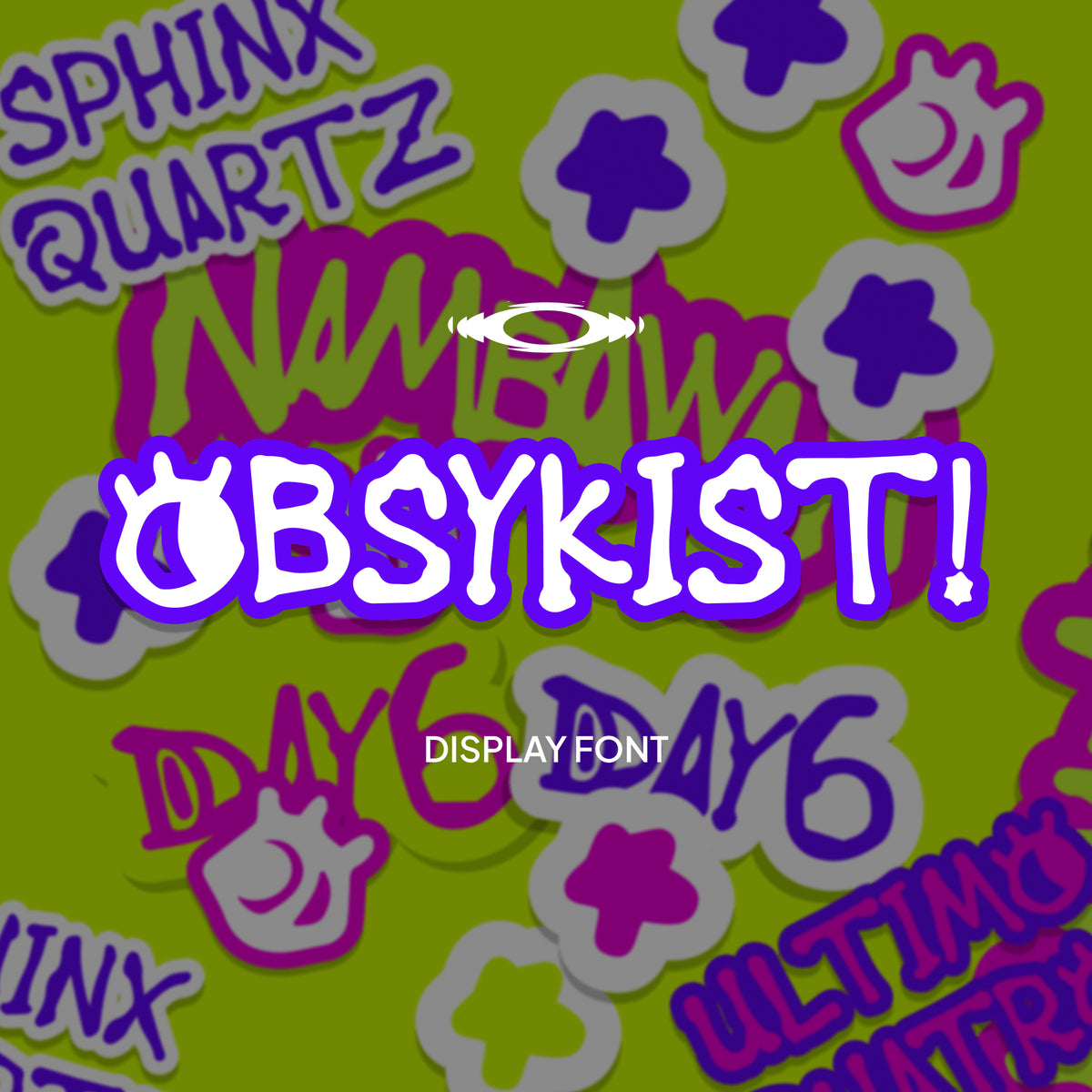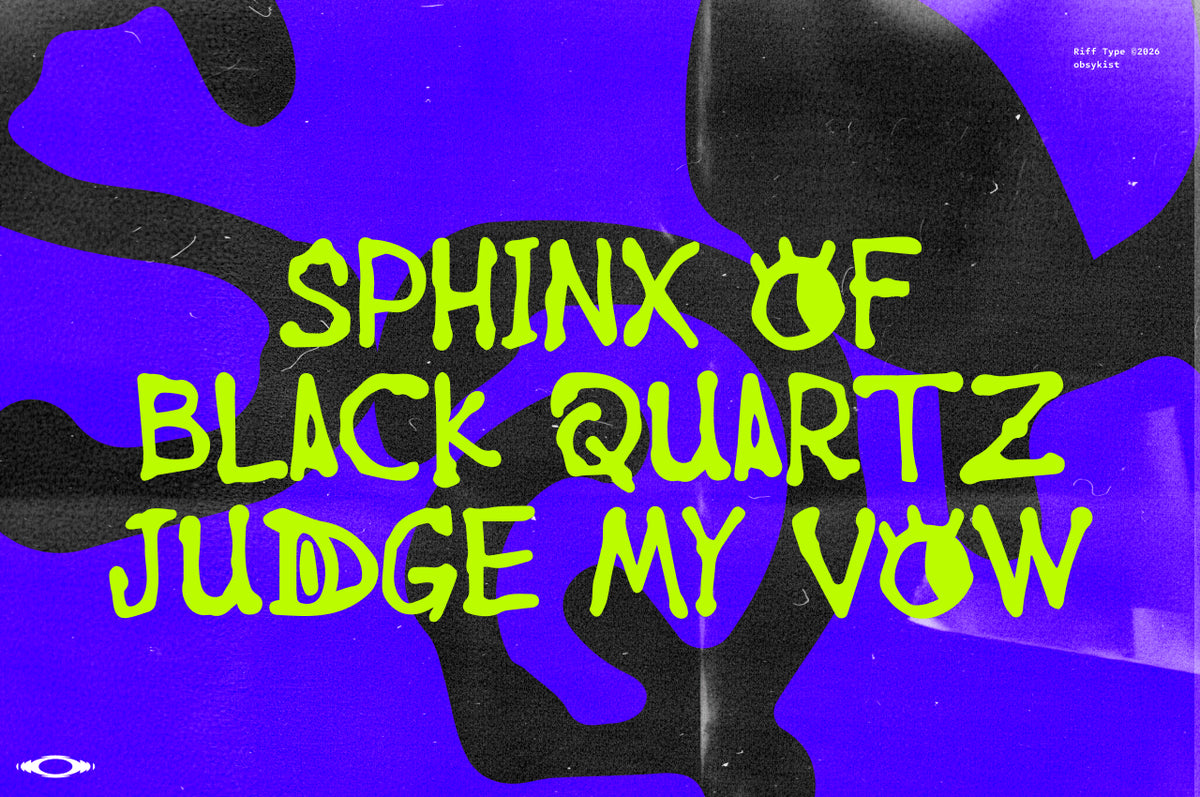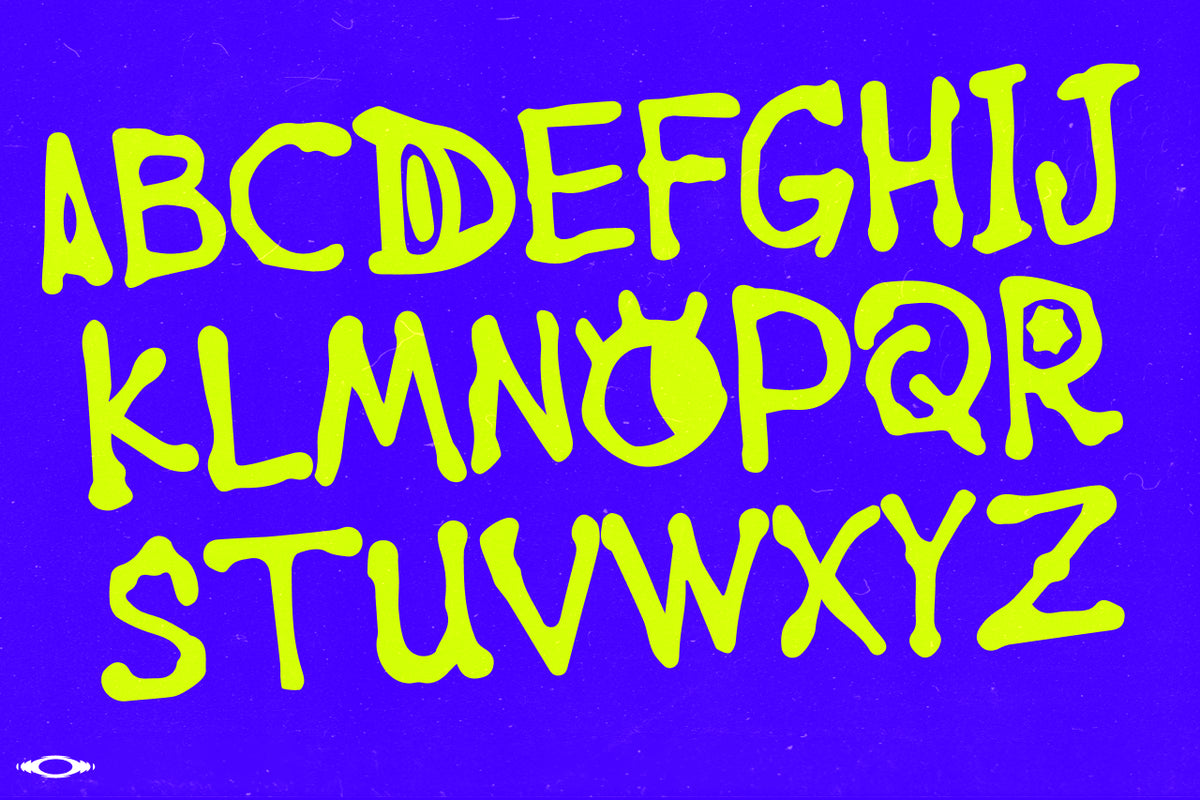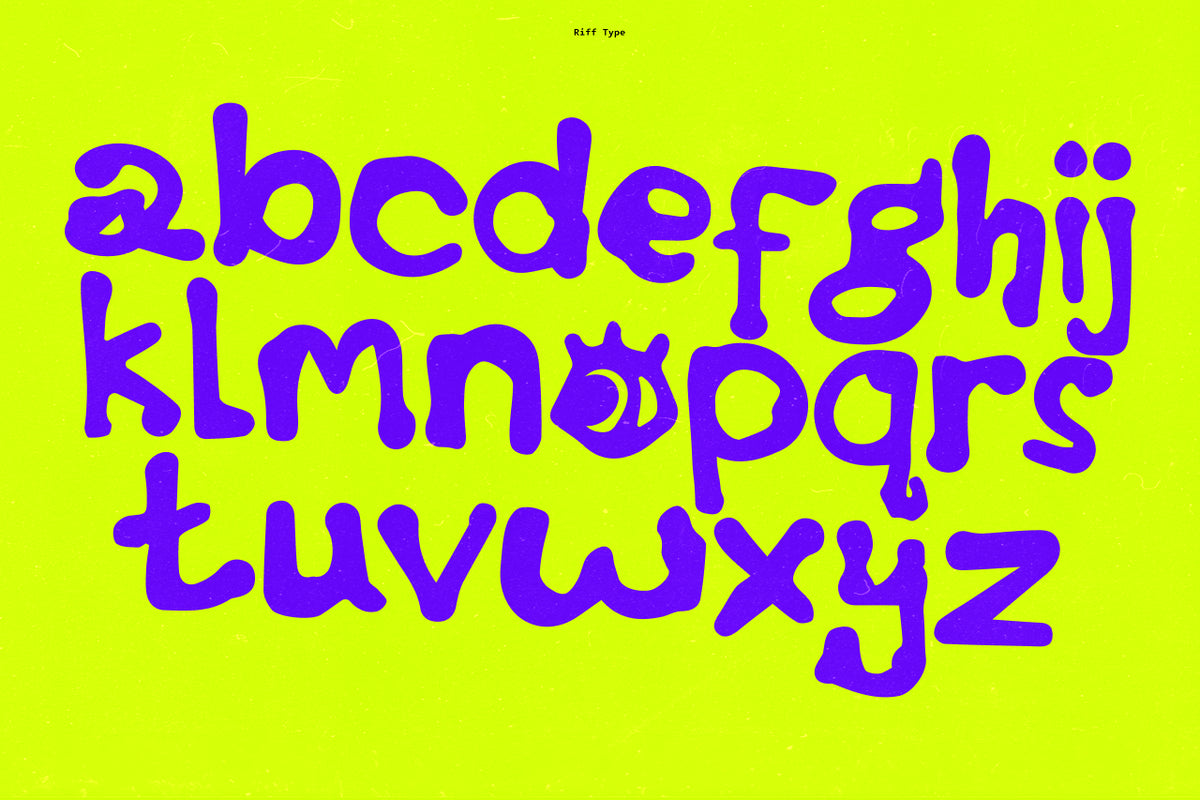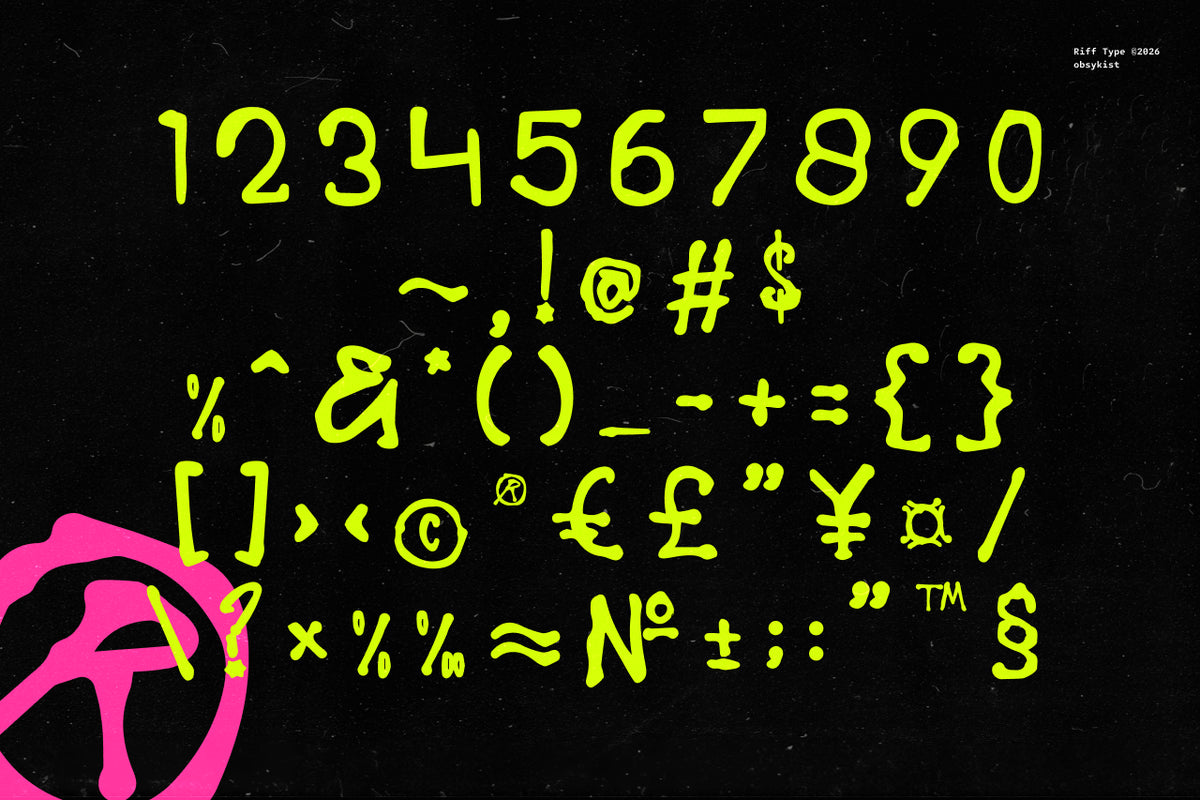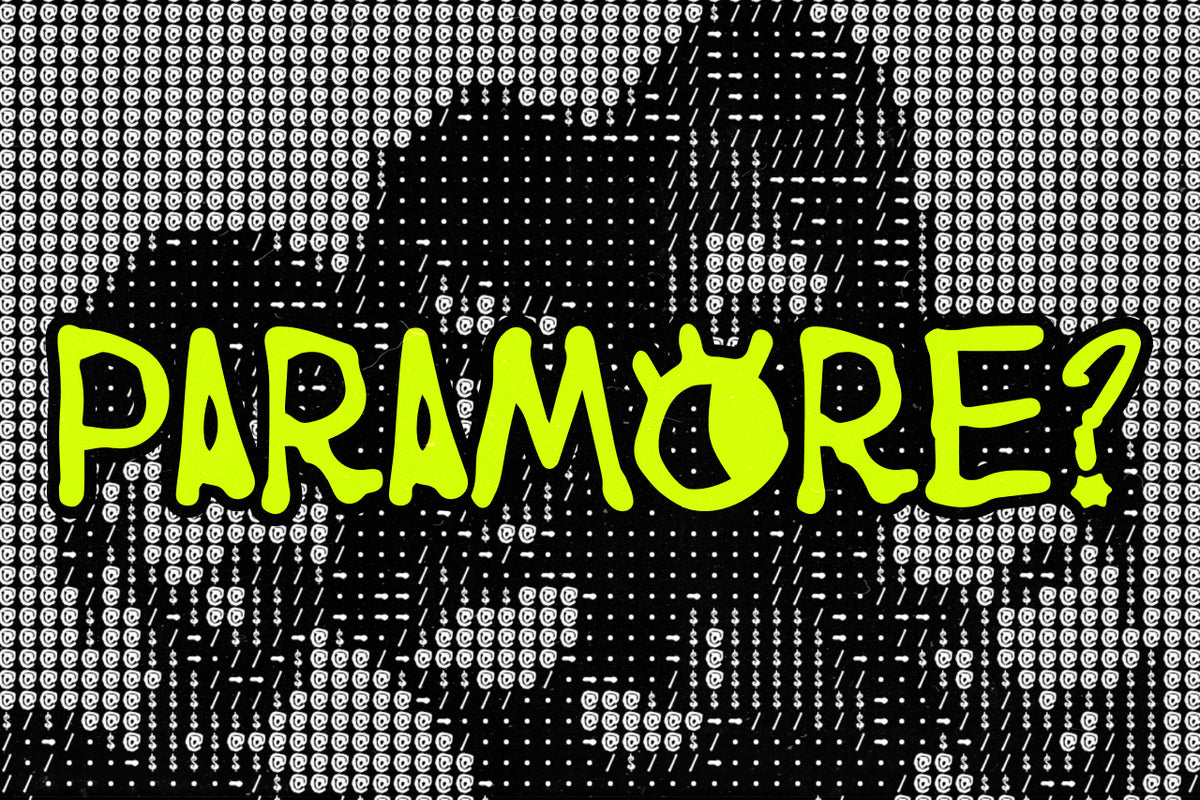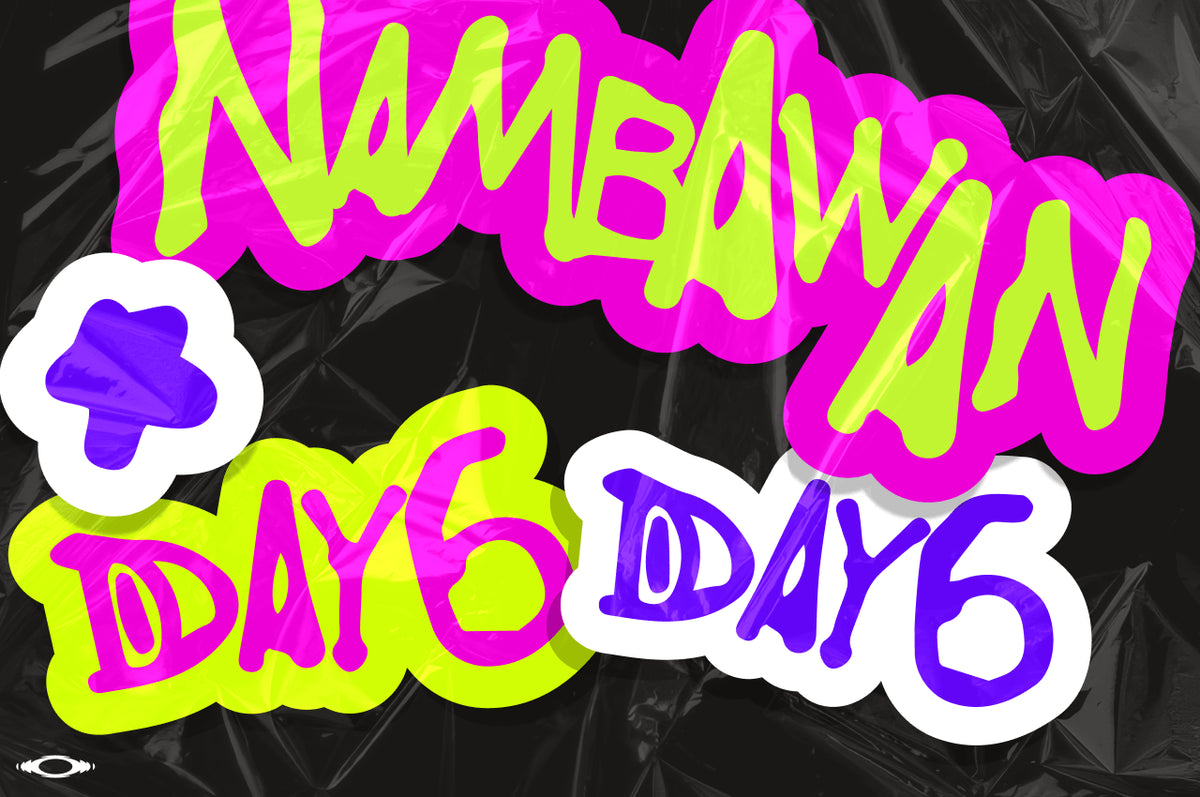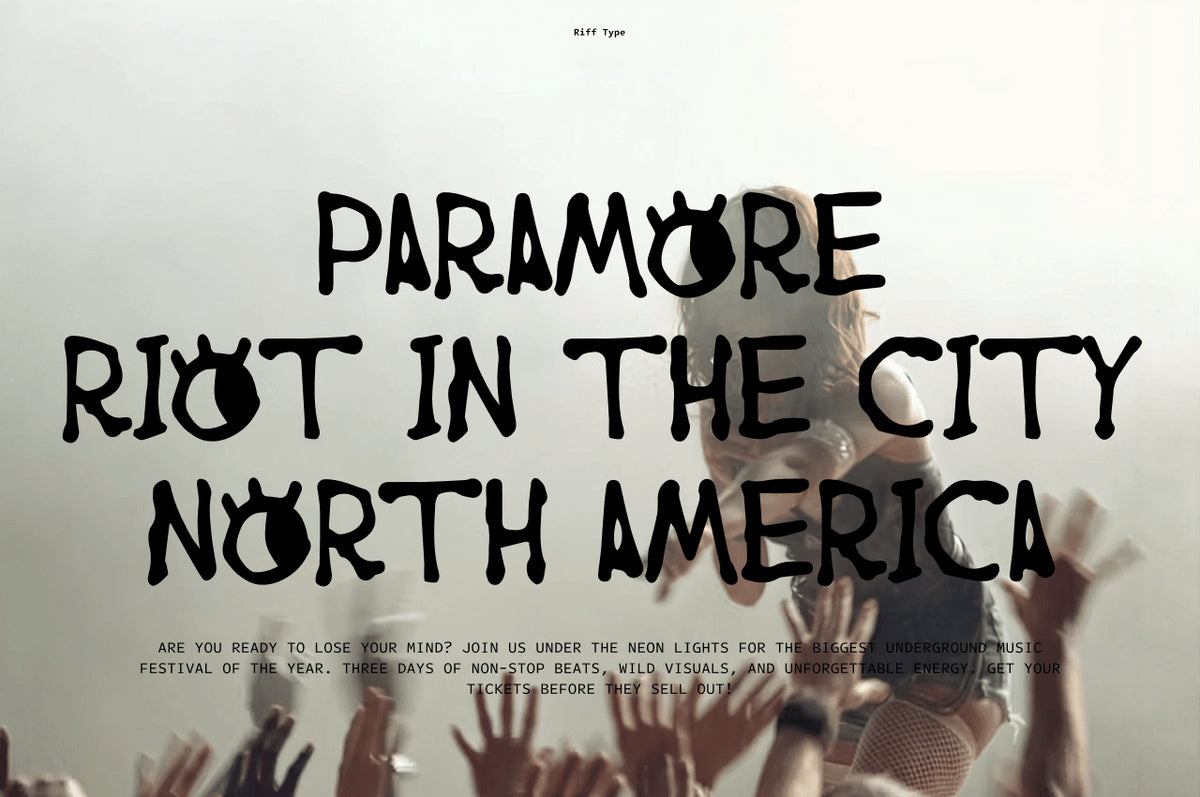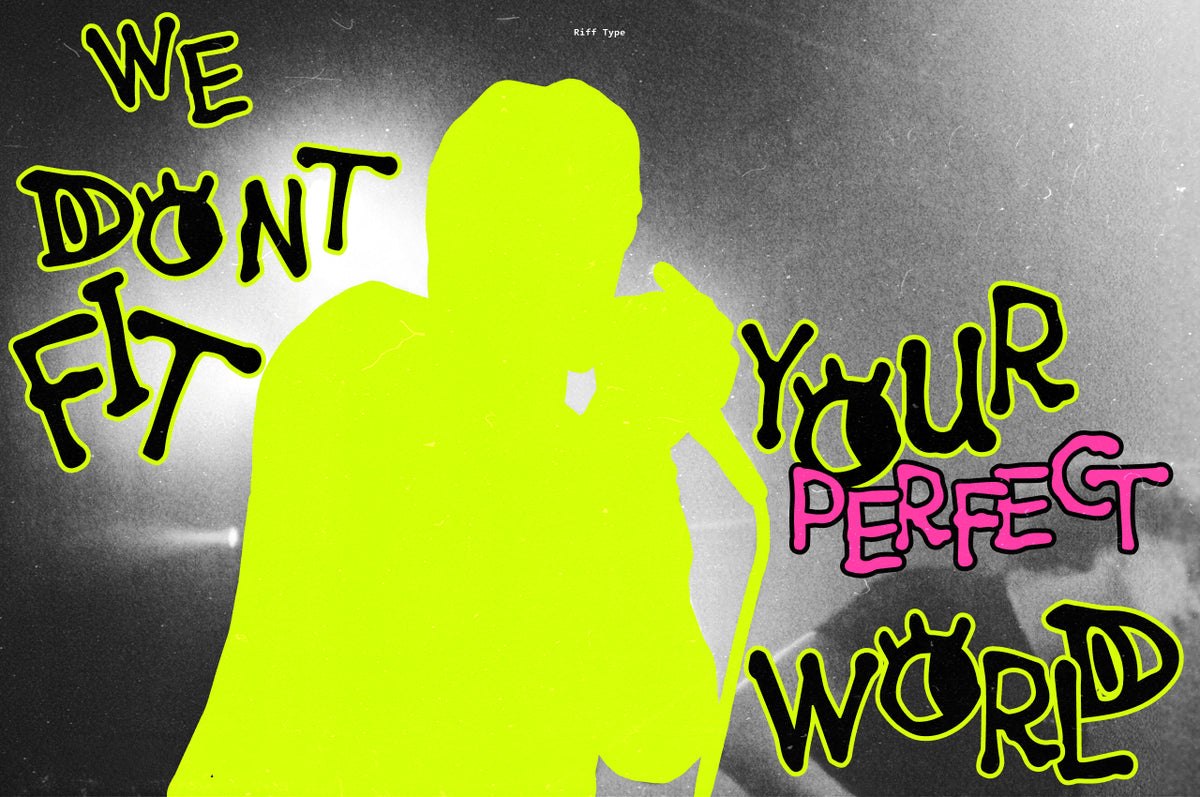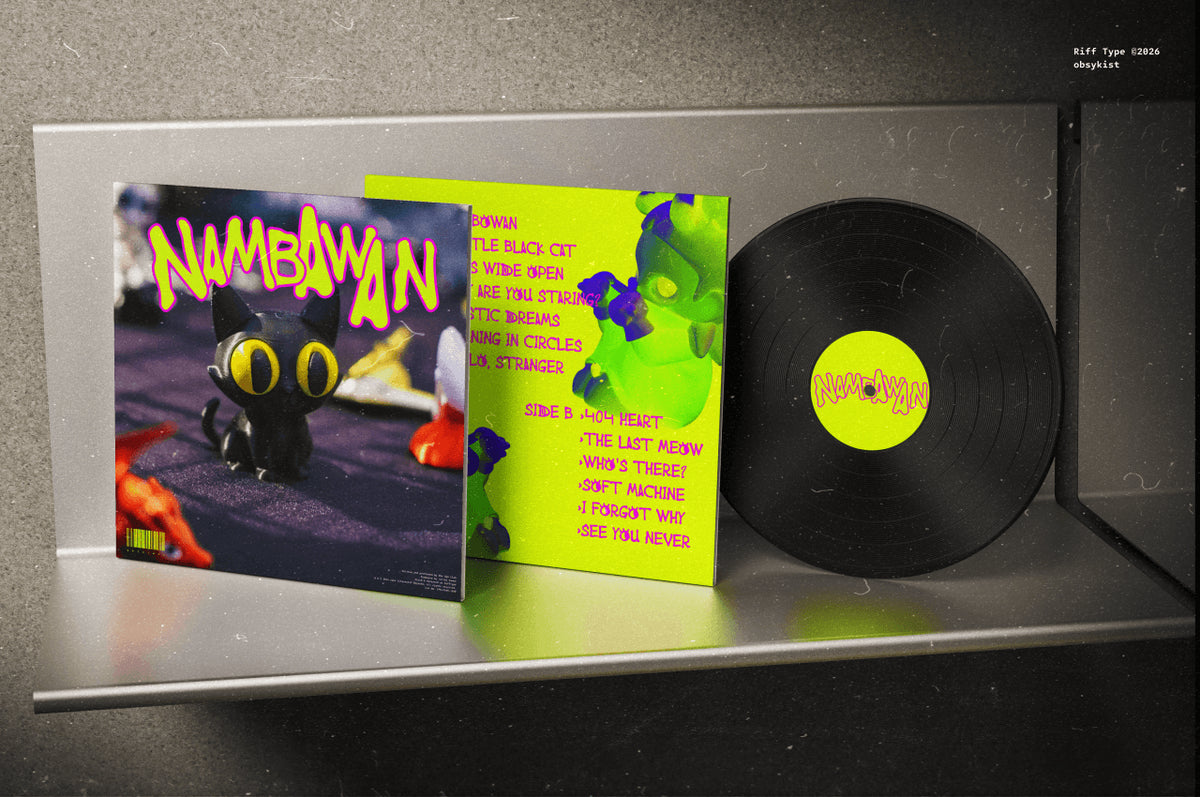
Obsykist - Pop Funk Typeface
Riff Type
Obsykist is a hand-drawn bubble display font inspired by the explosive energy of 2000s pop-punk, emo-pop, and alternative rock culture. With its chunky outlines, playful curves, and raw comic-doodle feel, this typeface brings an instant blast of nostalgia from the era of band tees, skate parks, and CD booklet art.
Obsykist is a hand-drawn bubble display typeface featuring chunky outlines and a comic-doodle style inspired by 2000s pop-punk and alternative rock aesthetics. The ZIP file includes TTF, OTF, WOFF, and WOFF2 formats.